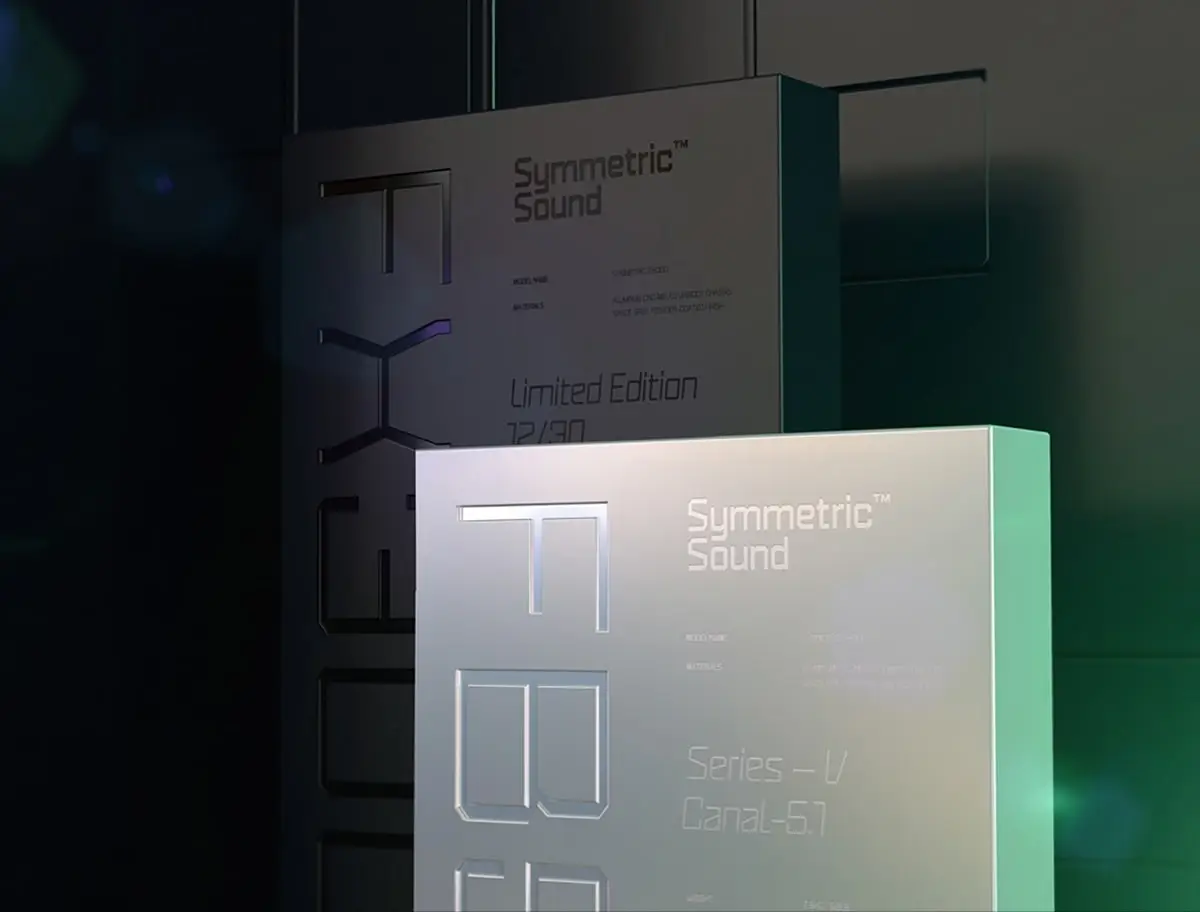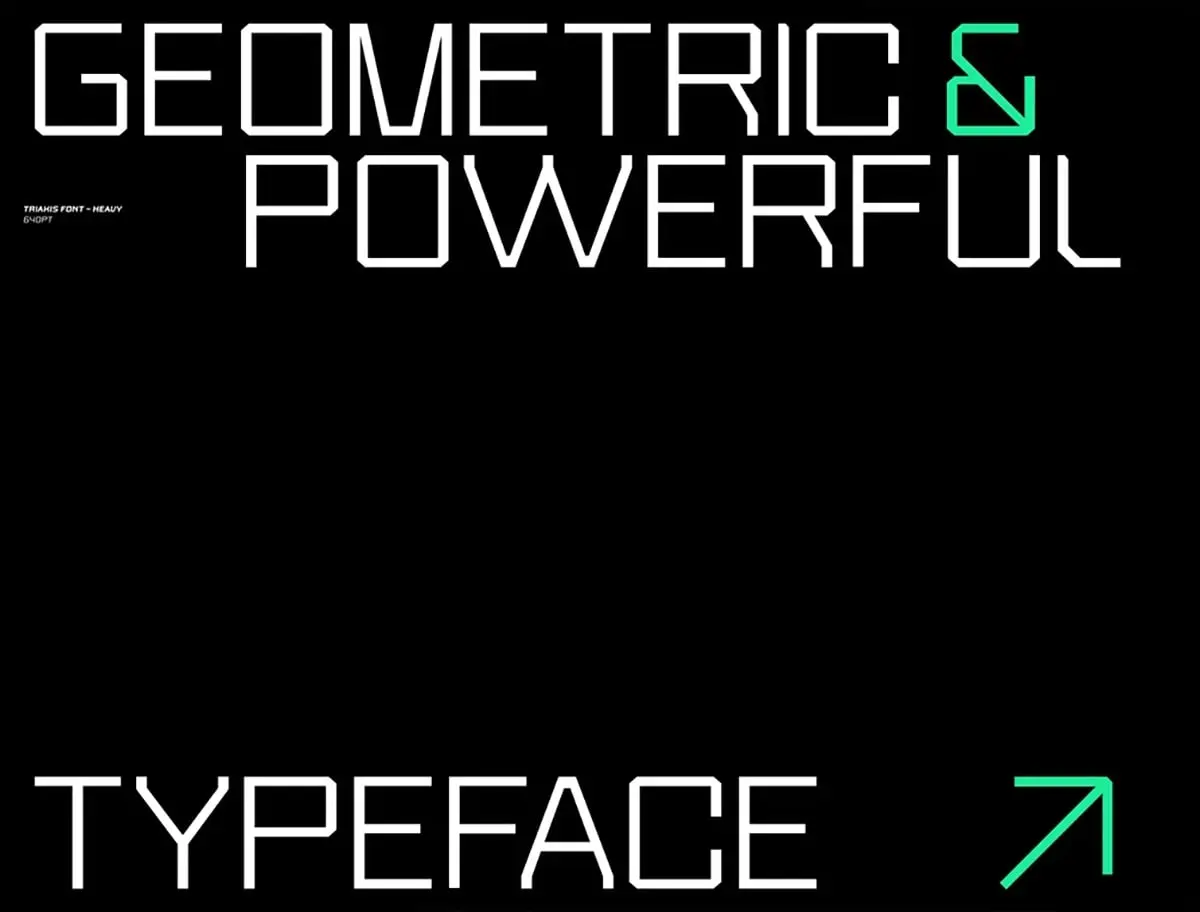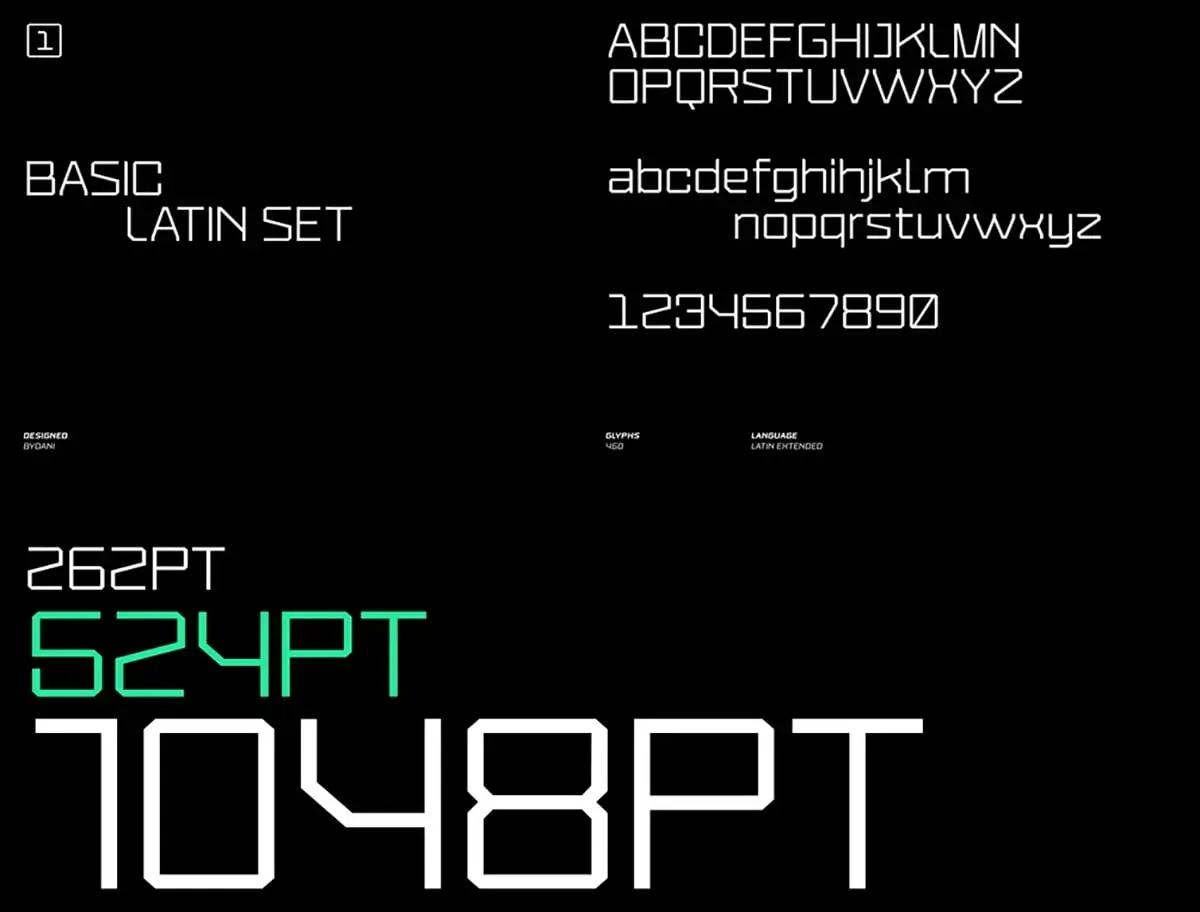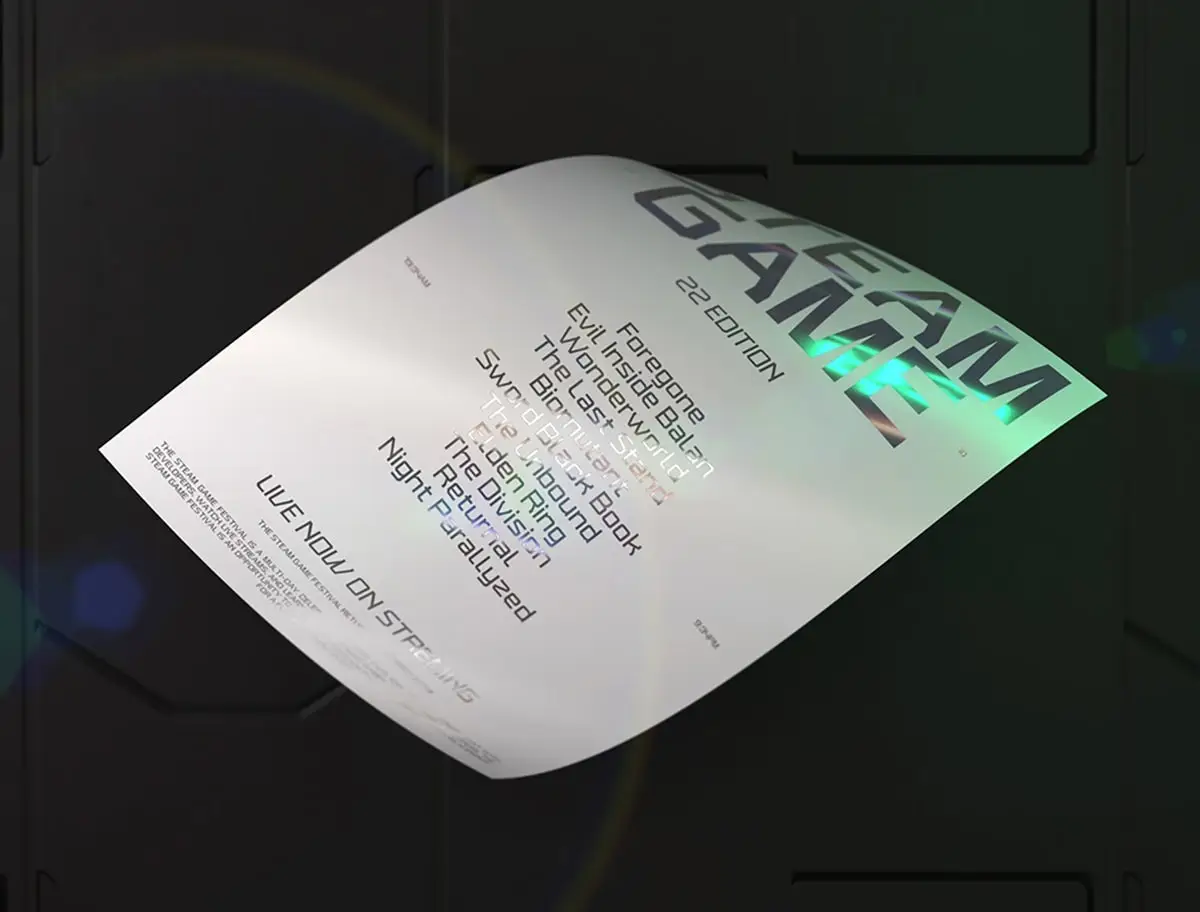
Triakis Font By Bydani
Introducing the Triakis Font by Bydani, a modern typeface that combines elegance with versatility. This font is perfect for a wide range of design projects, from branding and logos to web and print applications.
• Multiple weights for varied applications
• Uppercase and lowercase letters included
• Supports a wide range of languages
• Great for web design and user interfaces
• Use in print media for eye-catching headlines and body text